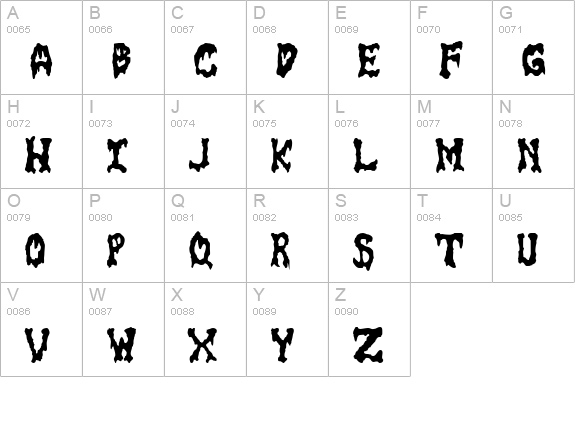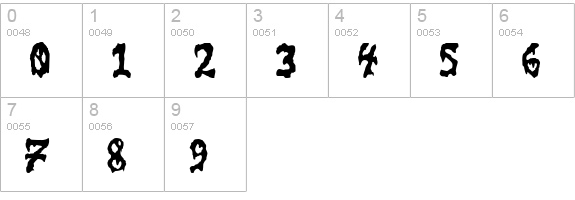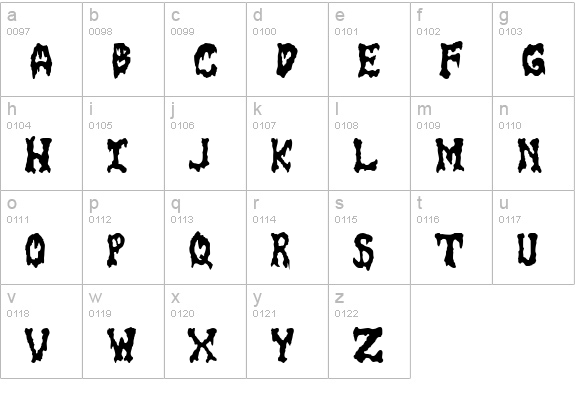
GoreFont II Font Details
Introducing GoreFont II, a stunning font that combines elegance with a touch of edginess. This font is perfect for those seeking a unique and eye-catching design for their projects. With its bold and captivating letterforms, GoreFont II effortlessly captures attention and makes a lasting impression. But what sets GoreFont II apart from other fonts is its incredible versatility. Whether you're looking to create a striking logo, design a captivating poster, or craft an unforgettable website, this font has got you covered. Its carefully crafted details, from the intricately designed serifs to the perfectly balanced letter spacing, make it an ideal choice for any creative endeavor. And the best part? GoreFont II is absolutely free! That's right, this incredible font is freely available to download at FontsMarket.com. Now you can bring your designs to life without breaking the bank. With just a few clicks, you can have access to this captivating font and take your projects to new heights. So why wait? Don't miss out on the opportunity to add a touch of elegance and sophistication to your designs with GoreFont II. Download it for free at FontsMarket.com and let your creativity soar. Whether you're a seasoned designer or just starting out, this font is sure to become your go-to choice for all your design needs. Embrace the power of GoreFont II and create something truly remarkable today.